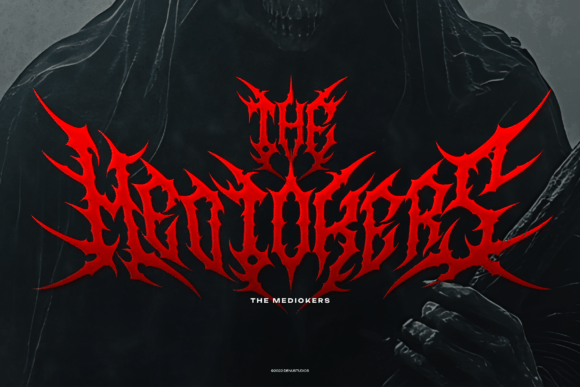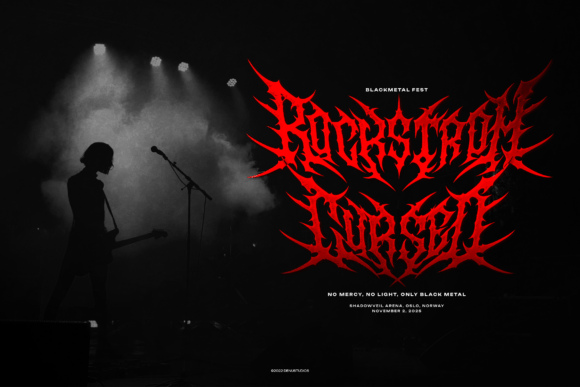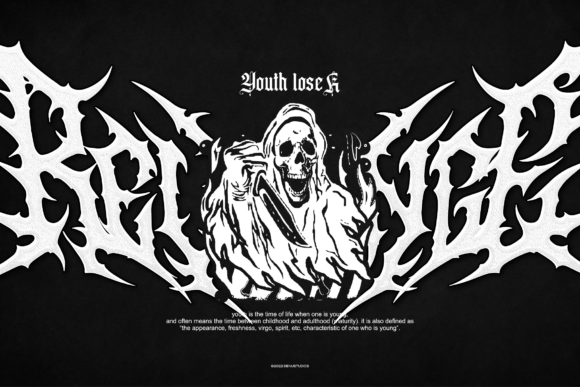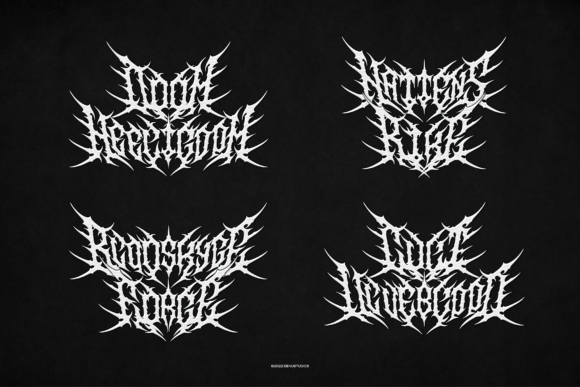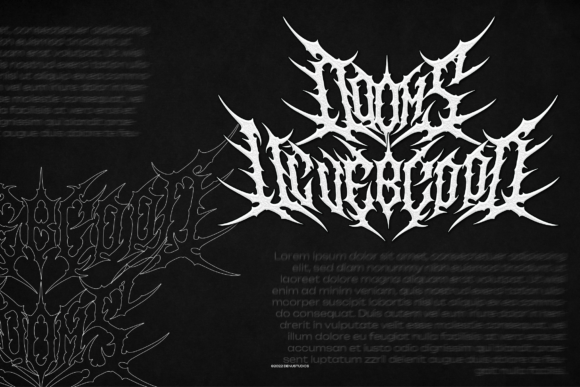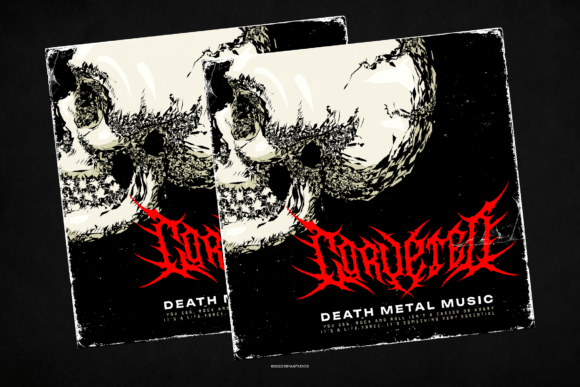
Introduction to Skyreaper Font
As a designer, you’ve likely found yourself in a creative jam, stuck for the perfect font to elevate your project. Maybe it’s a band logo, a horror poster, or an album cover that needs a bold, eye-catching touch. Whatever the case, we’ve got just the thing: the Skyreaper Font.
This razor-sharp death metal font brings brutal energy and chaotic elegance to your designs, making it a valuable resource for any creative project. With its twisted, spiked letterforms and intense visual punch, the Skyreaper Font is perfect for designers looking to add a high-quality, edgy touch to their work. And the best part? It’s available for free download, complete with 234 glyphs and 7 style alternates for maximum creative destruction.
Whether you’re working on a design project or just looking for a new font to add to your collection, the Skyreaper Font is a must-have design resource. Its transparent background makes it easy to use in any design scenario, from digital to print. So why wait? Download the Skyreaper Font today and unleash your creativity.
Key Features of Skyreaper Font
- High-quality design resource ideal for creative projects, with a unique and modern aesthetic.
- Designed with precision, featuring a clear and legible font size of 1000 units per em, with a resolution of 300 DPI.
- Perfect for use in digital design, such as web development, graphic design, and UI/UX projects, due to its modern and sleek appearance.
- Unique characteristics include bold and italic styles, making it a versatile font for various creative applications.
Honest Review: Skyreaper Font
I recently stumbled upon the Skyreaper Font, a high quality design resource that’s perfect for any creative project. One of the things I love about this font is its unique aesthetic, which is both futuristic and edgy. It’s a great addition to any designer’s toolkit.
Here are some things that work well about the Skyreaper Font: ✨
- High quality vector graphics, making it perfect for printing or digital use
- A wide range of character sets, including numbers and punctuation
However, there are some limitations to consider: ⚠️
- The font may not be suitable for all types of creative projects, particularly those that require a more subtle or classic look
- The transparent background may not be ideal for designs that require a solid background color
Overall, I’m impressed with the Skyreaper Font. It’s a high-quality design resource that’s perfect for designers who want to add a bit of edge to their projects. Whether you’re working on a graphic novel, a video game, or a futuristic logo, the Skyreaper Font is definitely worth checking out.
Designing with Skyreaper Font
The Skyreaper Font is a high-quality, free download that can elevate any creative project. This versatile design resource is perfect for designers and non-designers alike, offering a unique touch to your work. With a transparent background, the font is easily customizable and can be used in a variety of settings.
Tips for Getting the Most Out of Skyreaper Font
To get the most out of the Skyreaper Font, experiment with different font sizes and colors to create a unique look. You can also use the font in combination with other design elements to create a cohesive design.
The Skyreaper Font is commonly used in a variety of creative projects, including logos, brochures, and social media graphics. Its unique design makes it perfect for use in creative and innovative projects.
Alternatives to Skyreaper Font
Montserrat is a high-quality sans-serif font perfect for creative projects that require a modern and sleek design. It’s available for free download and features a transparent background, making it ideal for use on various design resources. Montserrat is a great alternative to Skyreaper Font when you need a more minimalist and clean look.
Great Vibes is a stylish and elegant script font suitable for designs that require a touch of sophistication. This font is ideal for use on design resources with a transparent background and can add a creative flair to your project. Compared to Skyreaper Font, Great Vibes is more refined and suitable for formal designs.
Does the Skyreaper Font have a transparent background?
Yes, the Skyreaper Font has a transparent background, making it easy to use with any background image or color. This feature allows for greater flexibility and creativity when designing with the font.